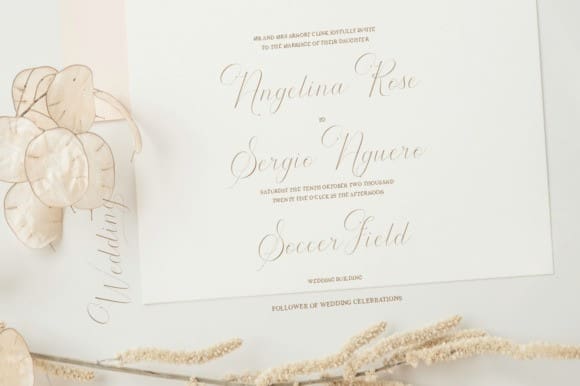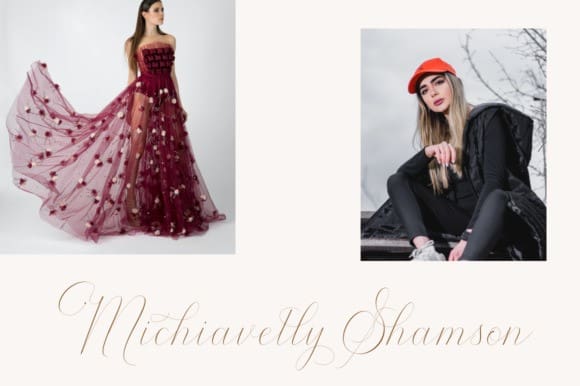
Bastian Font
Bastian Font is a subtle and gentle script font created for the theme of romance. Bastian Script adheres to a simple and elegant style, besides that it has a stunning vibe in the form of a unique Roman design.